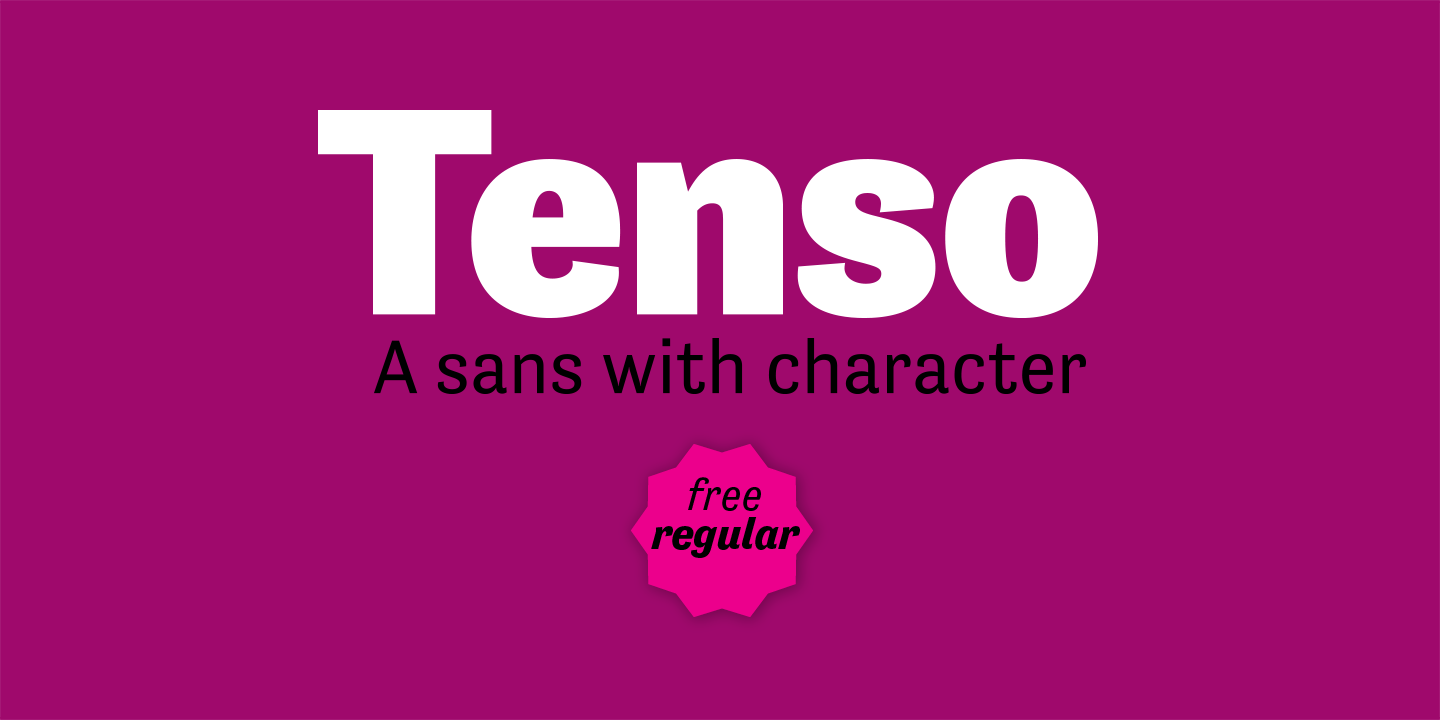
Tenso Font is perfect for tech company branding, modern logos, minimalist poster design, corporate presentations, mobile app interfaces, architectural signage, industrial product catalogs, startup identity systems, contemporary magazine layouts, and digital dashboard designs. Its sleek geometric structure makes it ideal for projects requiring a clean, professional appearance.
What makes Tenso Font exciting is its perfect fusion of geometric precision and contemporary style that speaks to modern audiences. The font features sharp angles, consistent stroke weights, and mathematical proportions that create visual harmony and professional credibility. Its bold character commands attention while maintaining excellent readability across all media formats. The carefully engineered letterforms reflect current design trends while ensuring timeless appeal, making it a versatile choice for forward-thinking brands and cutting-edge design projects.
Tenso Font comes in multiple weights including Thin, Light, Regular, Medium, Bold, and Black variations. Each family member maintains the distinctive geometric character while offering comprehensive flexibility for typographic hierarchy. The complete font family includes condensed and extended versions, providing designers with extensive options for space-conscious layouts and impactful display applications.
Whether you're developing tech startups, architectural firms, or modern corporate identities, Tenso Font Free Download provides the contemporary edge needed to stand out in competitive markets. The font's geometric precision appeals to design-conscious audiences while conveying innovation and reliability. Its comprehensive character set supports international typography requirements, making it suitable for global brands and multilingual design applications that demand both style and functionality.